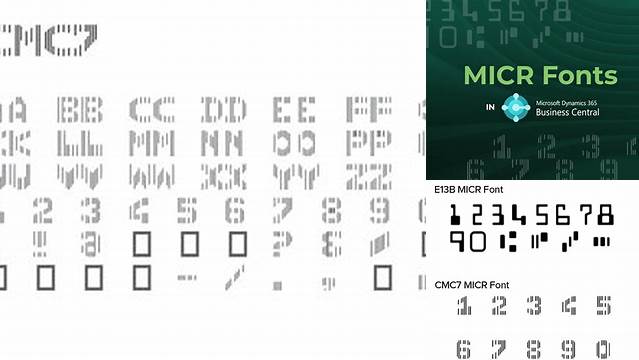
Understanding the MICR CMC7 Font
So, what exactly is the MICR CMC7 font? Well, it's a special font used for printing the magnetic ink character recognition (MICR) characters on checks and other financial documents. These characters are read by special machines at banks, allowing for the automated processing of checks. The CMC7 font is just one of the different fonts used for MICR. It's the most commonly used font in many countries for check processing because of its unique features, like the distinctive shape of the characters. The font's design is crucial for reliable reading by MICR readers, minimizing errors during bank transactions. Think of it as a secret code that only machines can read, helping your money get where it needs to go. The micr cmc7 font free download options available can be a huge help. Without this font, you won't be able to print those important details at the bottom of your checks.
This font uses a unique set of 14 characters. These include the digits 0 through 9, plus four special symbols. These symbols act like control codes that tell the reader where certain pieces of data begin and end. The design of the font ensures that characters are easily distinguishable, even when printed with lower quality magnetic ink. This is very important for the accuracy of processing. If you're looking for a micr cmc7 font free download, make sure the font you get has this complete character set, and is designed for the correct printing specifications.
Why You Might Need the MICR CMC7 Font
Why is the MICR CMC7 font so important? Well, if you're printing checks or other documents that require the MICR system, you absolutely need this font. Banks and financial institutions rely on the accuracy of the MICR system to process millions of transactions daily. Without the correct font, the automated reading systems can't read the details printed, which will lead to rejections, delays, and lots of headaches. If you're a business owner, this means you'll be unable to create your own checks in house, relying instead on expensive pre-printed checks. Individuals who need to print checks for personal use also need the correct font to avoid the same issues. The micr cmc7 font free download is therefore essential. Using the right font is therefore not just convenient, it's essential for seamless financial transactions. The proper font will make sure that your payments are processed fast and accurately. The advantages of the correct font extend to saving time and decreasing the risk of errors in processing.
Furthermore, using the correct font adds a layer of security. The MICR system, in addition to enabling automated processing, also helps prevent fraud because the specific ink and font design make it difficult to forge checks. So, having the MICR CMC7 font ready means you're not only making your financial life easier but also making it safer. Consider the micr cmc7 font free download as an investment in the efficiency and security of your financial workflows.
The Role of the MICR CMC7 Font in Financial Transactions
Let’s delve deeper into the importance of the MICR CMC7 font in financial transactions. It’s the backbone of automated check processing, allowing financial institutions to sort and process checks quickly and efficiently. Each character in the MICR line represents crucial information, such as the bank's routing number, account number, and the check number. The unique shape and magnetic ink properties of the font are essential for the OCR system to accurately read this information. Using the correct micr cmc7 font free download ensures that the check details are accurately captured without manual intervention. This automation reduces processing times, minimizes human errors, and keeps the financial system running smoothly. In a world where millions of checks are processed daily, the MICR CMC7 font is a vital part of our economy.
Without this specialized font, the process becomes manual, which is very inefficient and prone to error. Imagine having to manually input every check transaction. The MICR font eliminates the need for manual processing, allowing for near-instantaneous check processing. The use of the correct font minimizes errors such as incorrect account crediting and fraudulent transactions, creating a safer system for all users. When considering a micr cmc7 font free download, ensure that the font can work with your printing equipment to avoid any problems. This is not just about aesthetics, but about the very foundation of financial transactions.
Another trend is the development of new MICR fonts and improved printing methods. As print technology develops, it's essential for fonts to adapt. This ensures the readability and reliability of MICR characters. As technology improves, you should make sure that your micr cmc7 font free download can keep up. The goal of these developments is to boost accuracy. These changes are aimed at improving the efficiency of financial transactions. Check out the MICR technology that is in the future. Staying informed will help you anticipate the future requirements. The future of MICR includes advances in security and increased convenience.